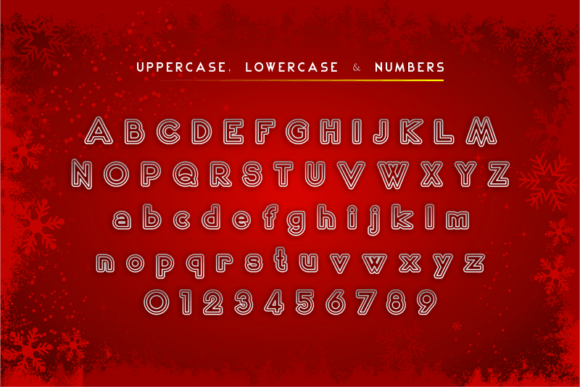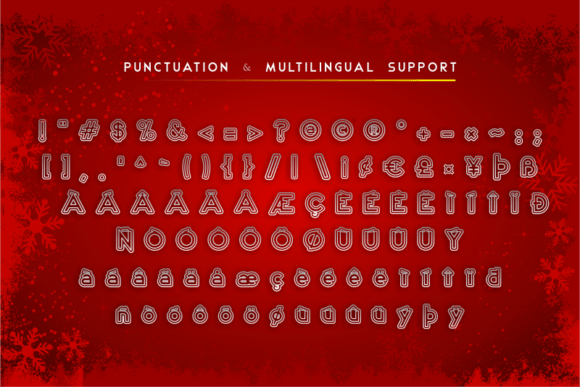
Ring in the New Year with Style: Introducing the 2020 Font
As the clock strikes midnight on New Year’s Eve, many of us feel a rush of creativity and a desire to start fresh. Whether you’re planning a party, designing a new logo, or simply looking for a way to add some flair to your social media posts, the right font can make all the difference. That’s where the 2020 Font comes in – a beautiful and elegant typeface that’s perfect for capturing the spirit of the new year.
Developed specifically for designers who want to add a touch of sophistication to their projects, the 2020 Font is a valuable asset for anyone looking to elevate their visual brand. With its sleek lines and modern aesthetic, this font is sure to impress. Whether you’re working on a personal project or a client brief, the 2020 Font is the perfect way to make a lasting impression.
2020 Font Key Features
- Font Family: 2020 Font is a sans-serif font family designed for modern and sleek typography.
- Unique Characteristics: Features a unique blend of geometric and organic shapes, resulting in a modern and sophisticated aesthetic.
2020 Font Review
Overall, I’d say the 2020 Font is a solid choice for any designer looking for a clean and modern sans-serif font. ✨ Here are some of its standout features:
- Wide range of weights and styles, making it suitable for various design applications
- Legible and clear, even at smaller font sizes
- Supports a wide range of languages, making it a great choice for international designs
- Works well on both digital and print media
- The font may feel a bit generic and lacking in personality compared to other sans-serif fonts
- Some users may find the font too minimalist, which can make it difficult to read in certain contexts
Overall, I’d give the 2020 Font 4 out of 5 stars. While it’s not the most exciting or unique font out there, it’s a reliable and versatile choice that gets the job done. If you’re looking for a clean and modern sans-serif font, the 2020 Font is definitely worth considering.
For best results, use “2020 Font” in bold or italic to add emphasis to your text.
- Social media posts and ads
- Business cards and resumes
Alternatives to “2020 Font” for Designers
Avenir Next is a sans-serif font designed by Adrian Frutiger. It is a modern and neutral font that is suitable for body text and titles. Avenir Next is a great alternative to “2020 Font” when you need a clean and minimalist design. It has a similar feel to “2020 Font” but with a more refined and sophisticated look.
Montserrat is a sans-serif font designed by Julieta Ulanovsky. It is a geometric font with a strong and urban feel. Montserrat is a great alternative to “2020 Font” when you need a bold and modern design. It has a similar geometric feel to “2020 Font” but with a more aggressive and edgy look.
Open Sans is a sans-serif font designed by Steve Matteson. It is a clean and modern font that is suitable for body text and titles. Open Sans is a great alternative to “2020 Font” when you need a neutral and approachable design. It has a similar feel to “2020 Font” but with a more friendly and inviting look.
Lato is a sans-serif font designed by Łukasz Dziedzic. It is a modern and elegant font that is suitable for body text and titles. Lato is a great alternative to “2020 Font” when you need a sophisticated and refined design. It has a similar feel to “2020 Font” but with a more luxurious and high-end look.